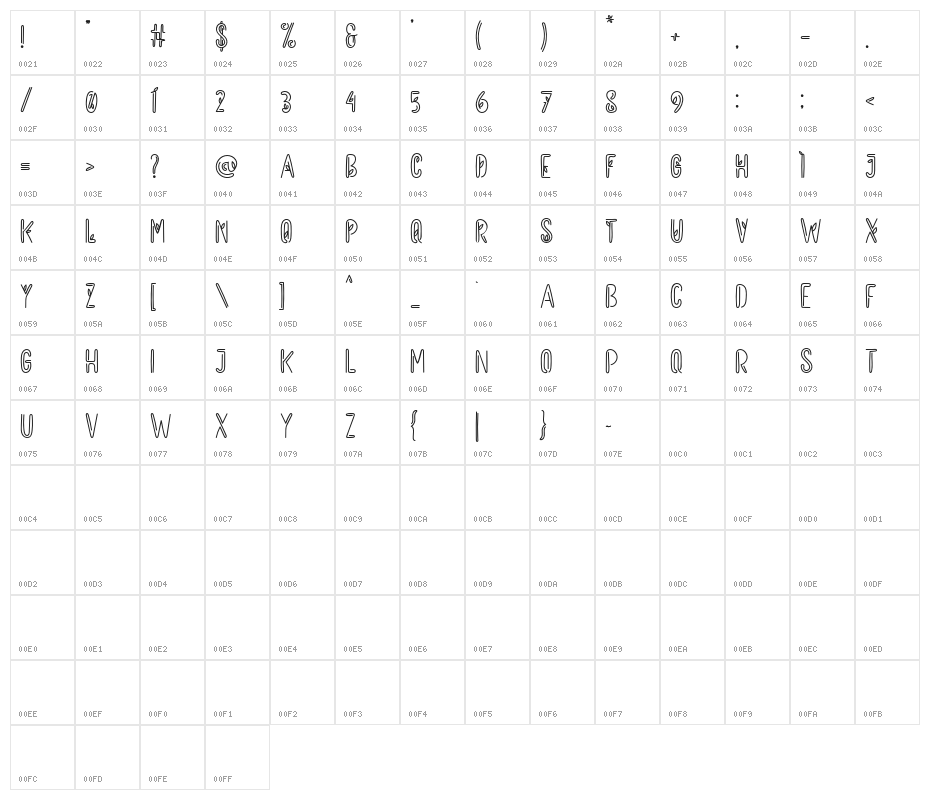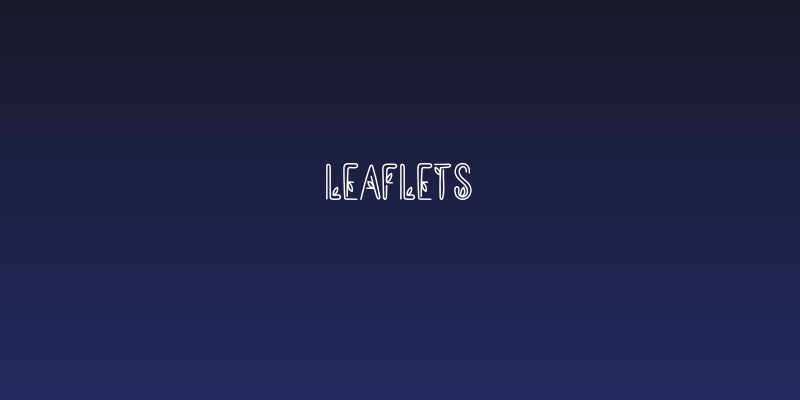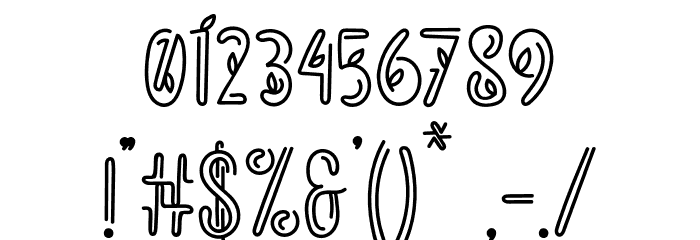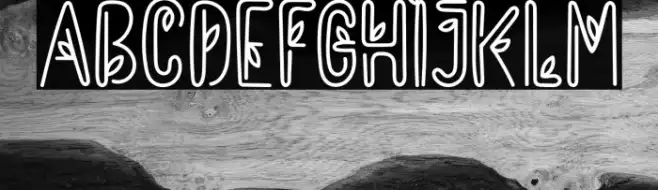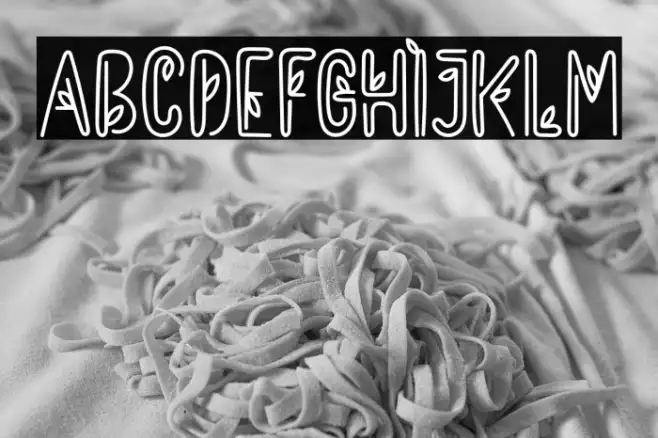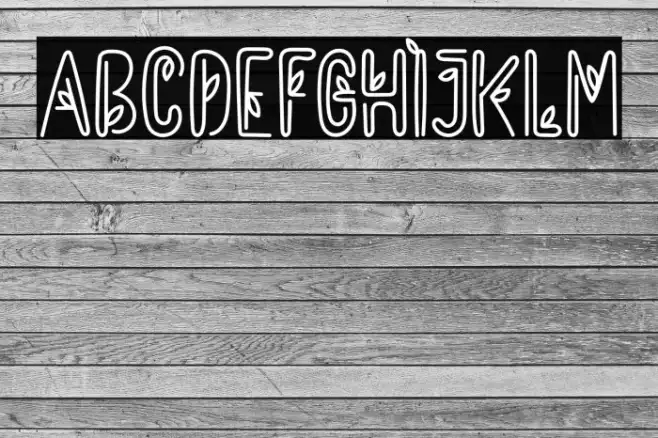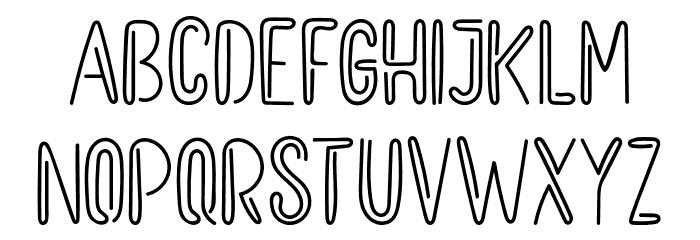
Leaflets Font
Leaflets Description
This font features a playful and decorative style with a hand-drawn appearance. The characters are outlined, giving them a hollow look that adds a unique dimension to the text. The uppercase letters are bold and expressive, with varying line thicknesses that create a dynamic visual effect. The lowercase letters maintain the same playful aesthetic, ensuring consistency throughout. Numbers and special characters are designed to match the whimsical style of the alphabet, making this font versatile for creative projects. Its distinctiveness makes it suitable for eye-catching designs.